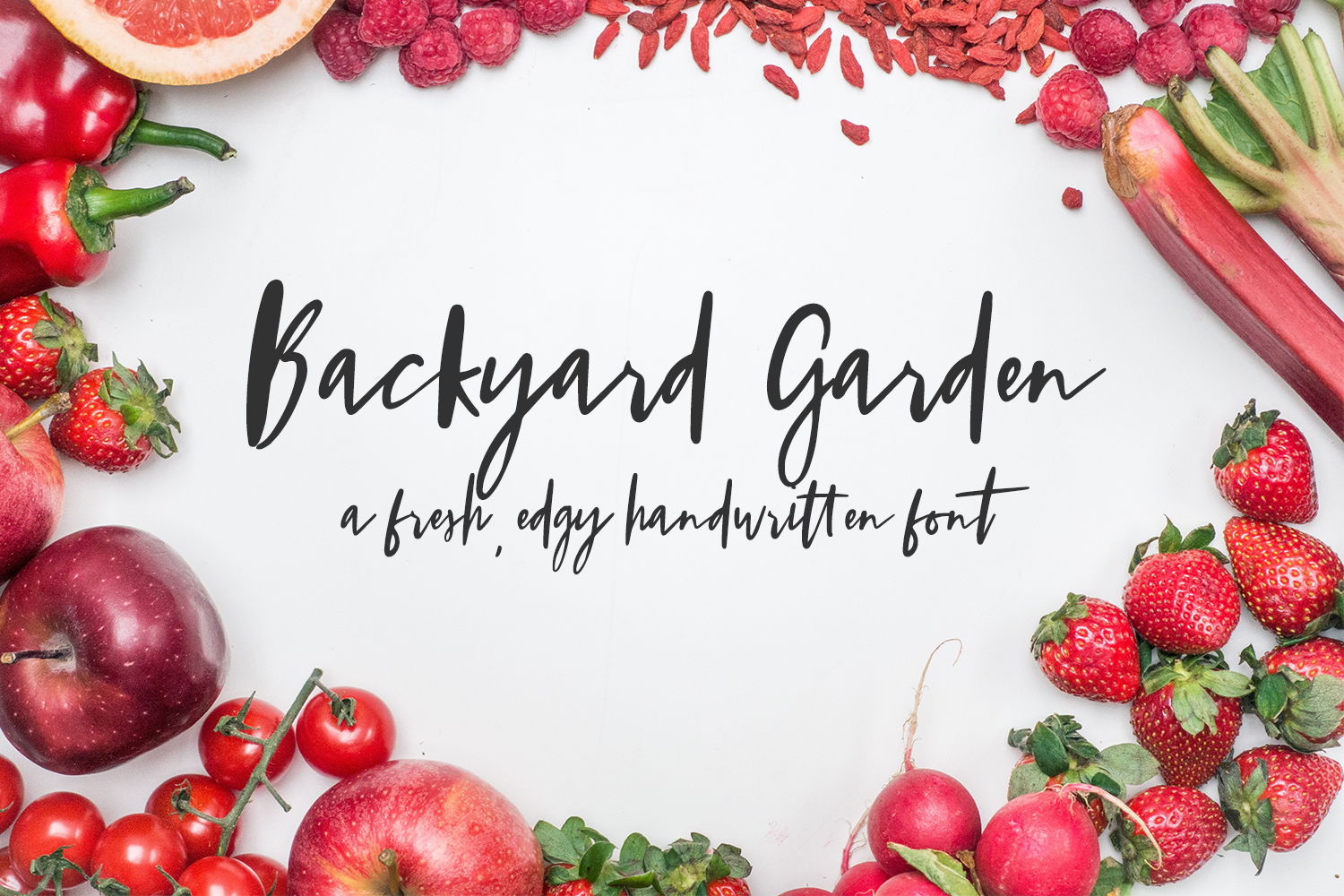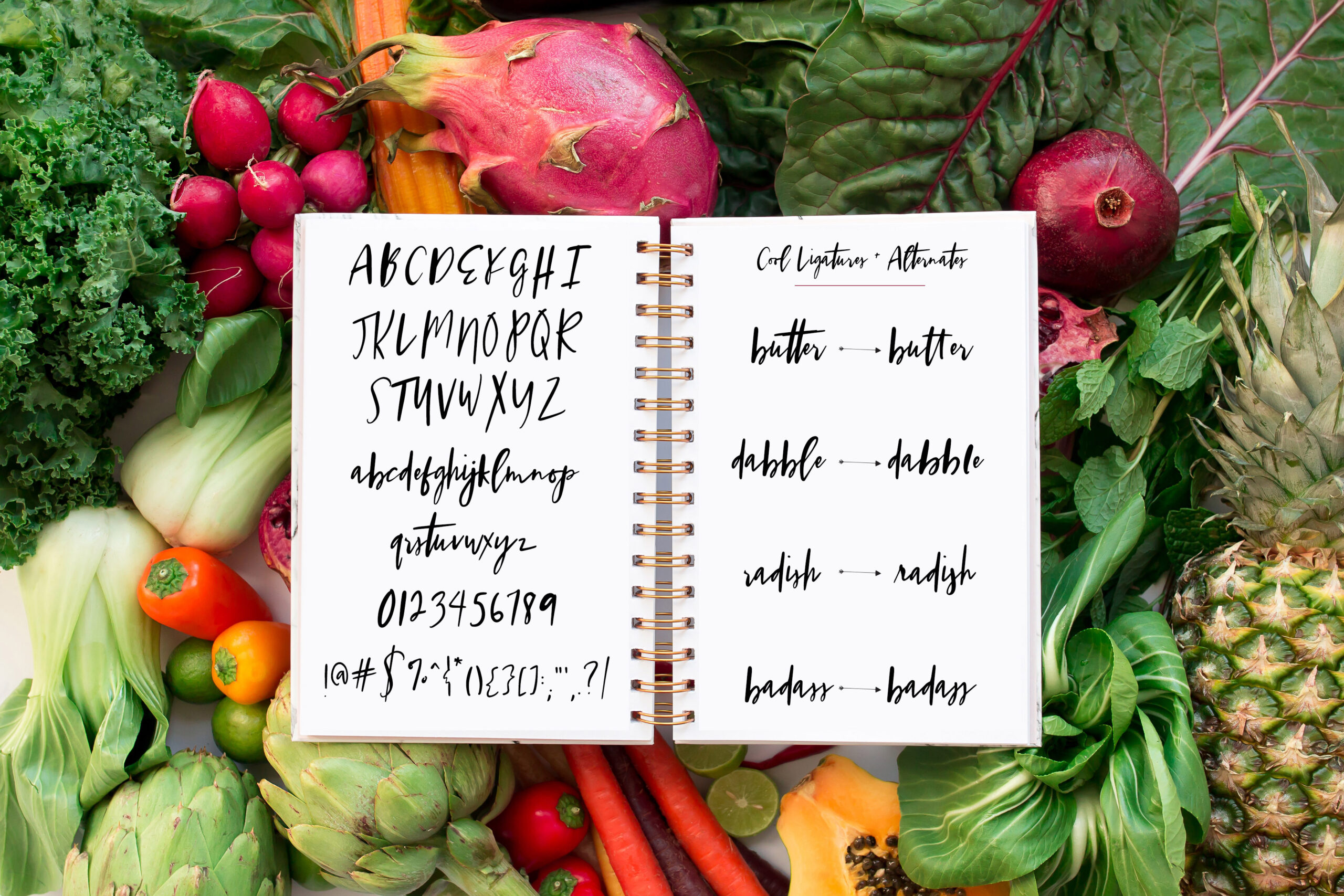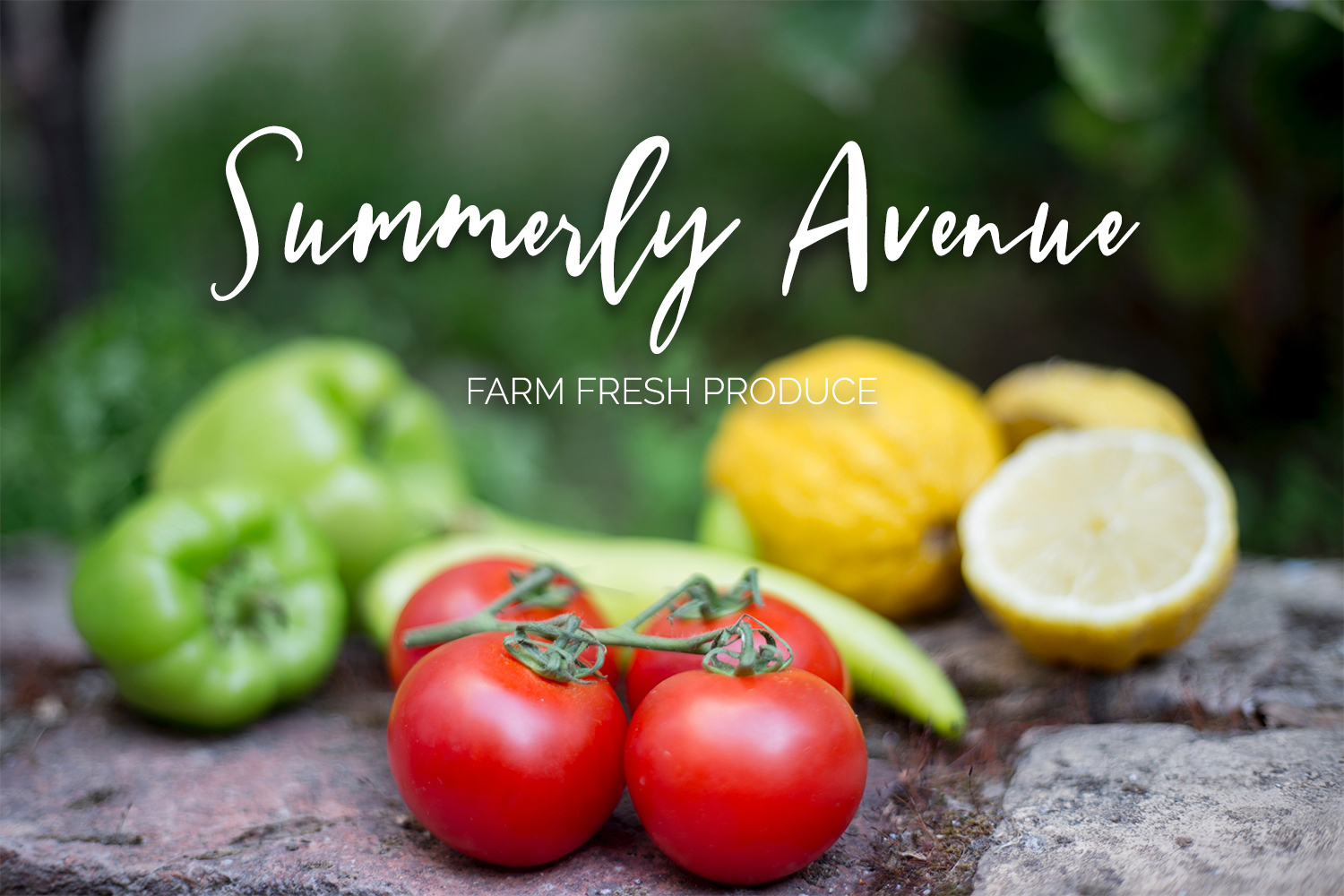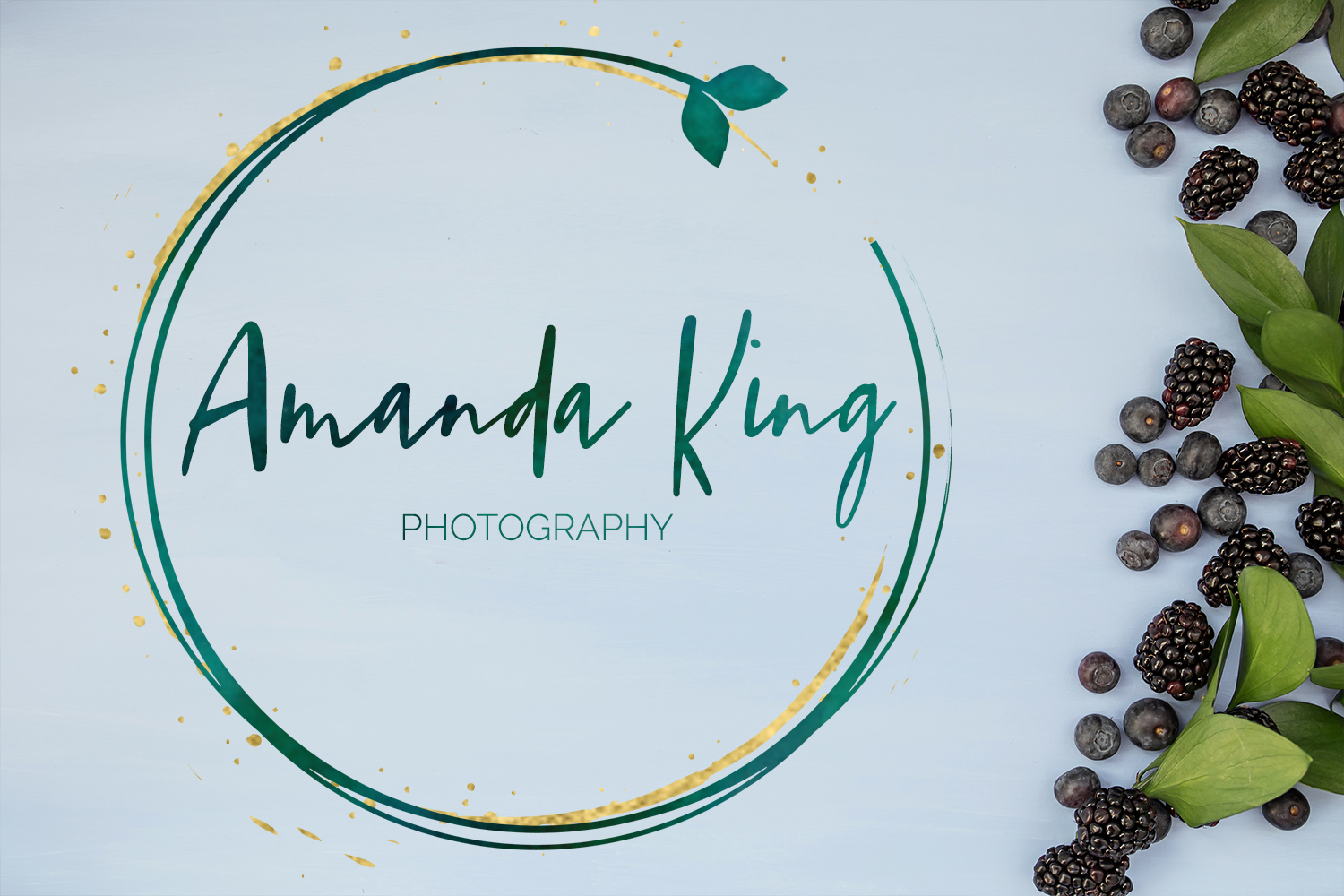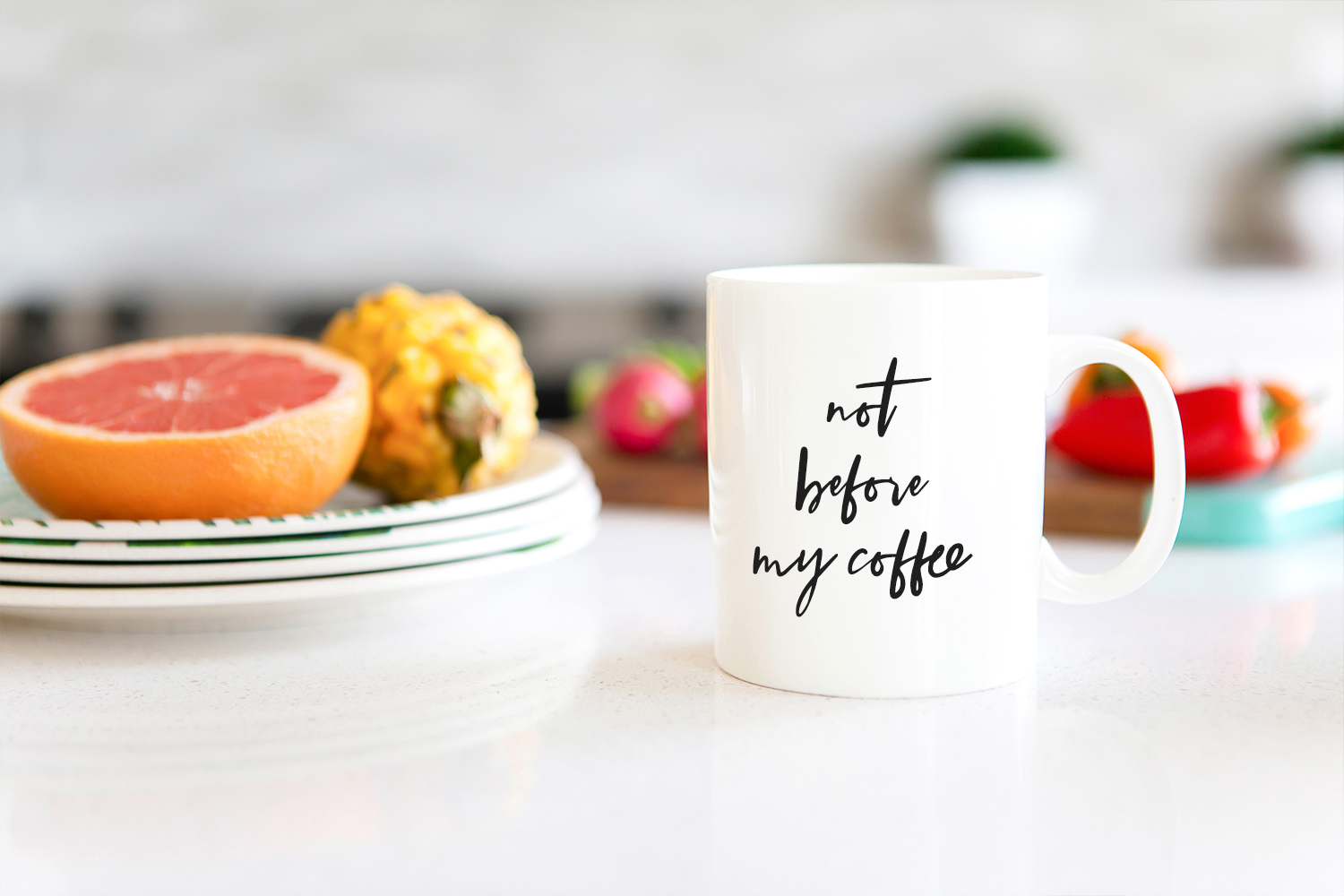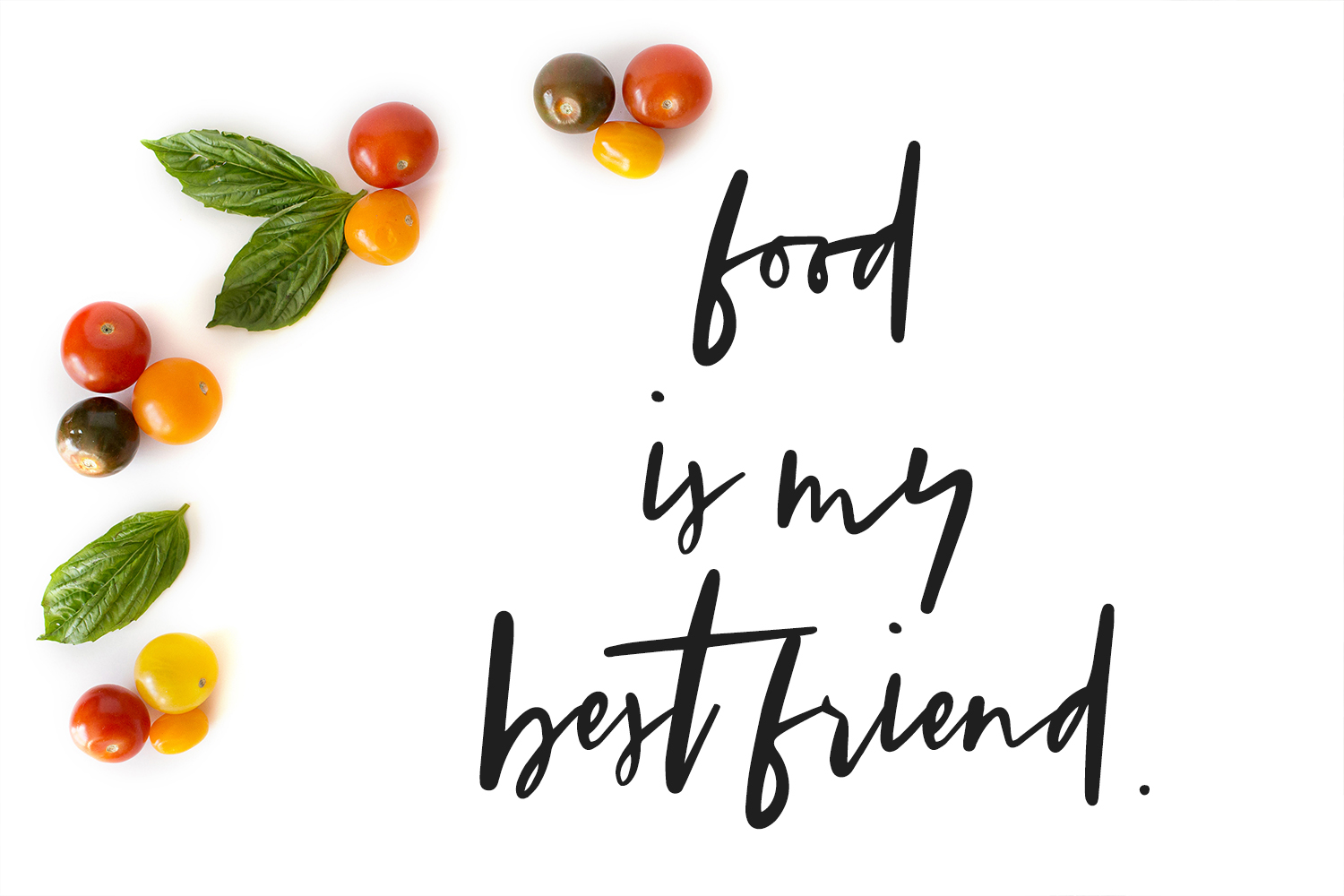
Backyard Garden Font
About Backyard Garden Font
Meet Backyard Garden, a fresh, edgy handwritten font!
One of my fondest memories as a kid involved a garden that my family once had. We had high hopes of an abundant haul, but the only thing that flourished were purple hull peas, which I would spend hours shelling on our patio! Backyard Garden is casual, fresh, and perfect for a variety of projects. It’s edgy enough for an awesome brand, easy to read for signage, or just funky enough for a non-traditional wedding invitation.
Backyard Garden includes some ligatures and alternate characters, as well as Western European language support!